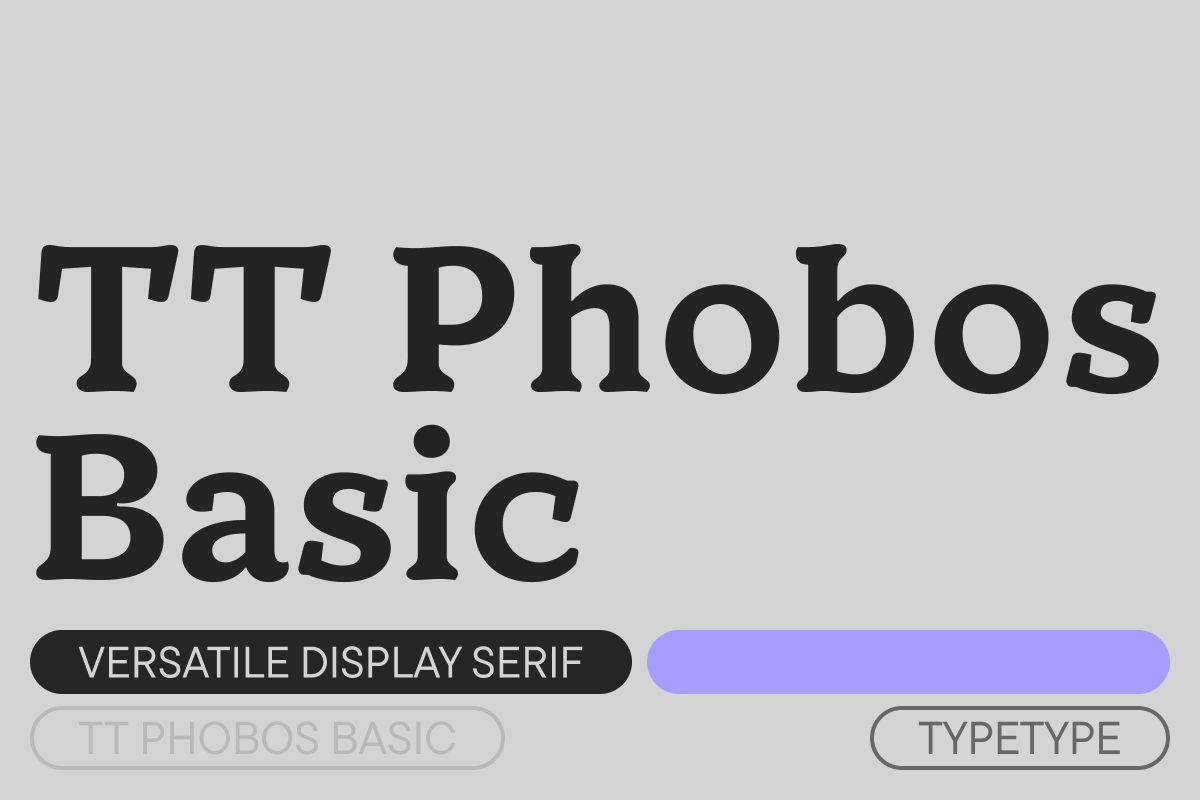
TT Phobos Black Italic
TT Phobos is a pliable display serif with a soft and gentle character. The features of the typeface are the moderate contrast between bold and thin strokes, pliable visual compensators, and the counter-clockwise bend of internal ovals. In addition to 6 weights and 6 italic, TT Phobos also includes two original decorative fonts: Inline and Stencil. Despite its pliability and display character, TT Phobos is dynamic enough and is well suited for text arrays even in large text blocks.